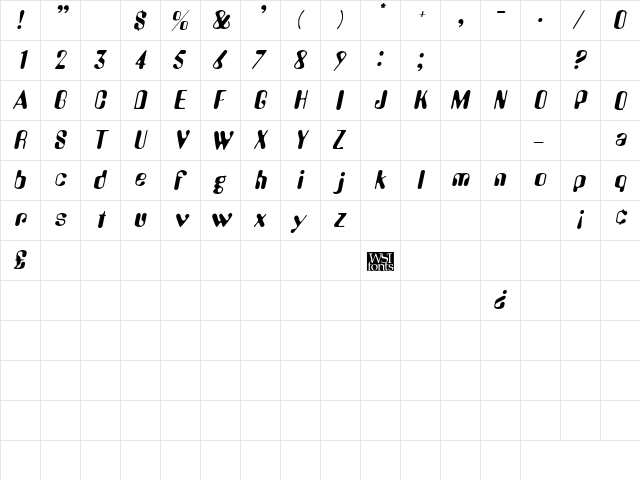
Urkle Italic Font Preview
Urkle Italic
Urkle Italic Font Details
Design Context for Urkle Typeface
Urkle is a composed and adaptable typeface that performs quietly and consistently across a wide range of design contexts. The dynamic lean of this cut emphasises speed and emphasis in any layout.